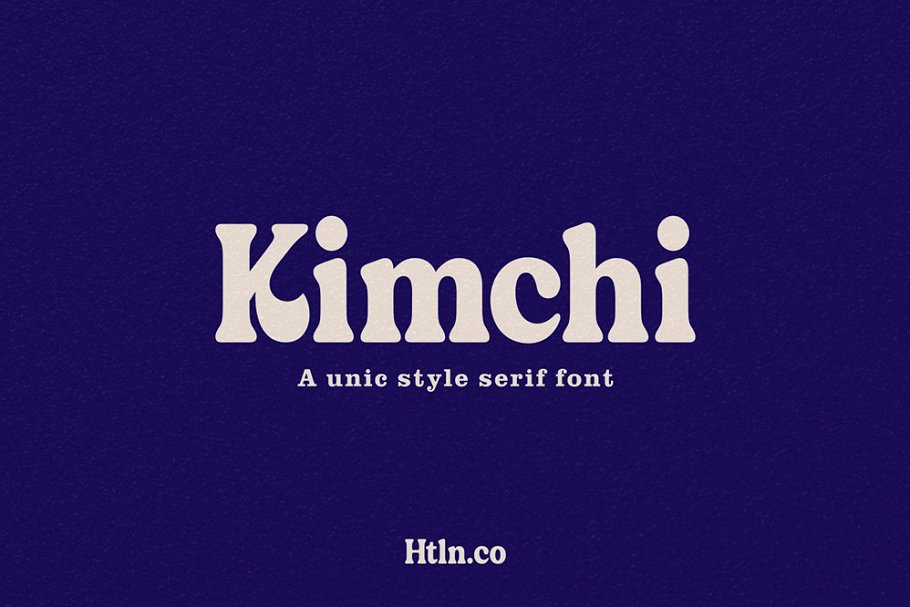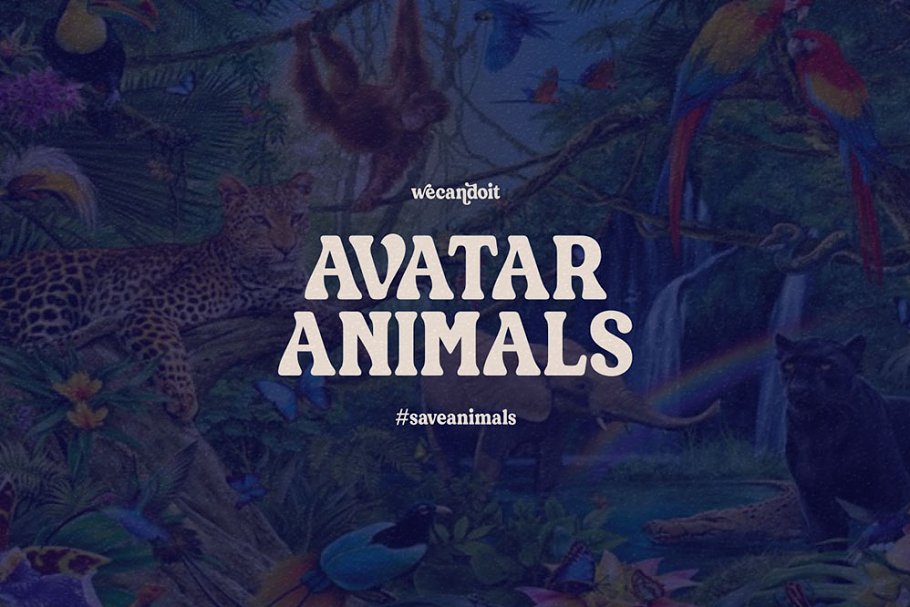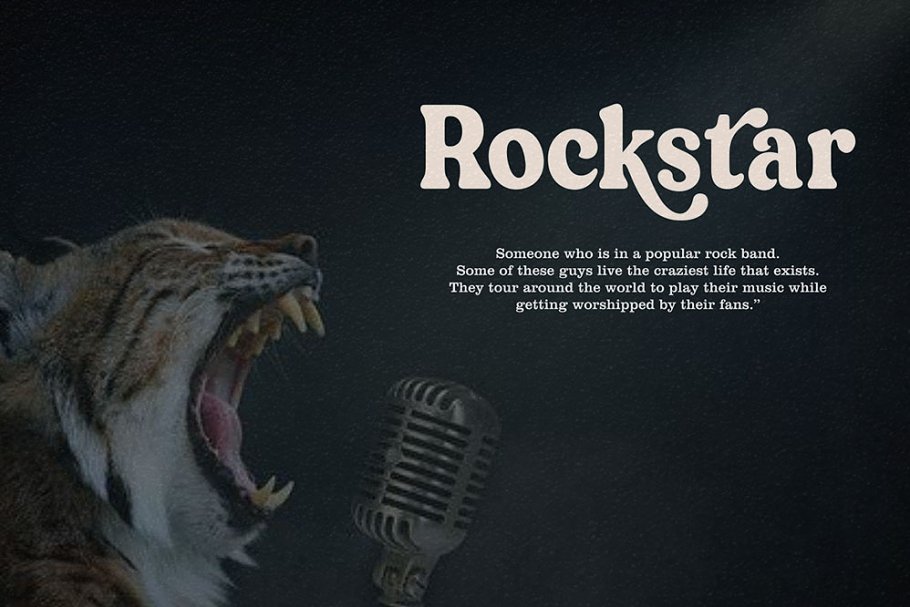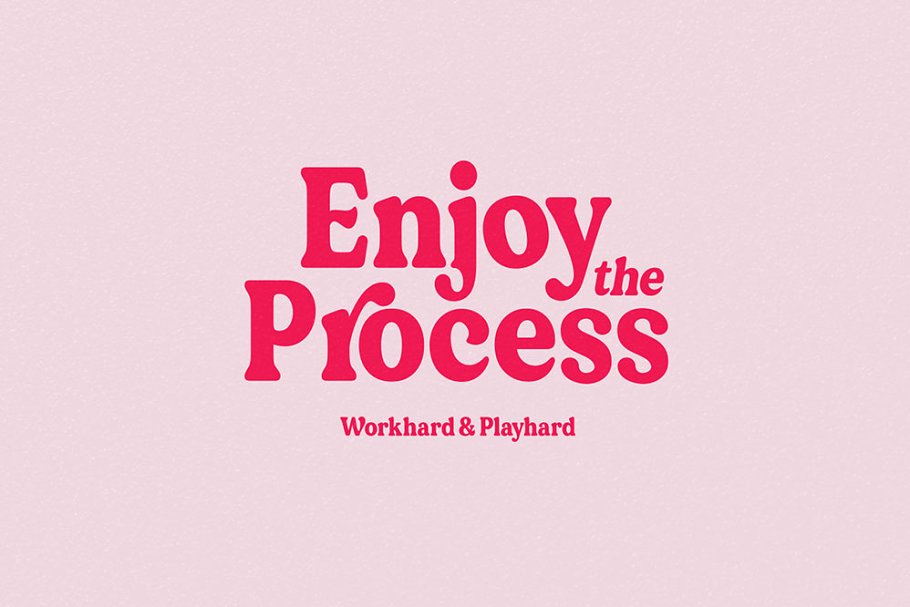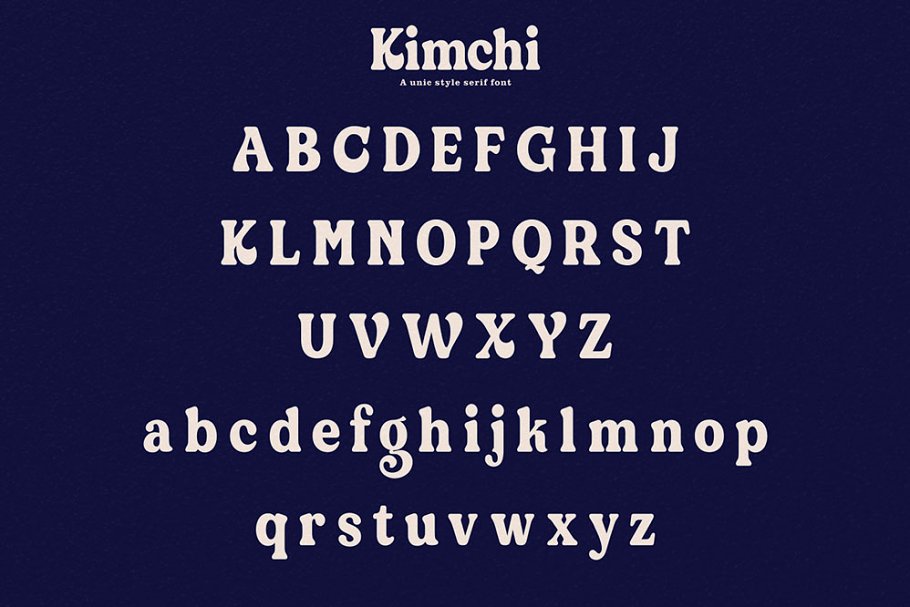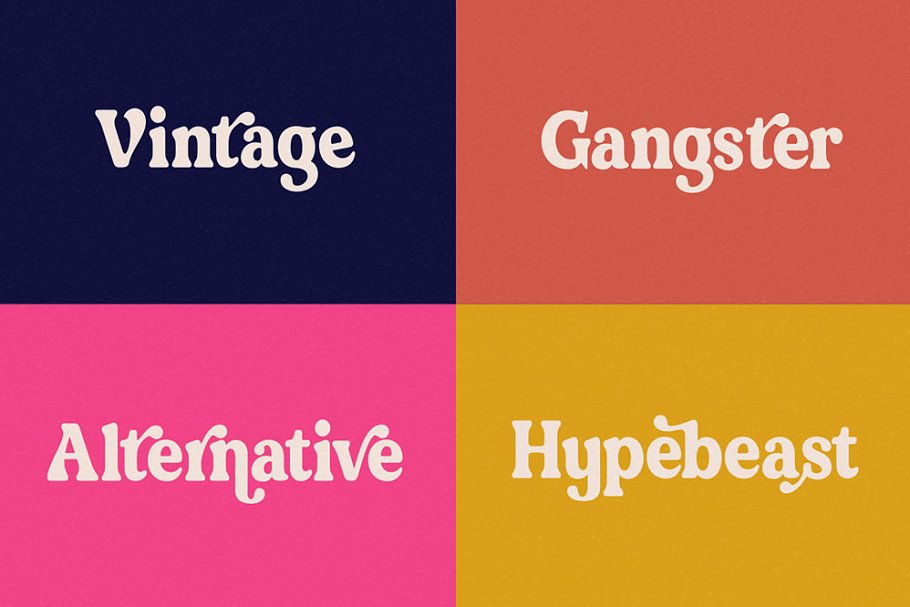
About the Kimchi style
The Kimchi Style is new font unic style , elegant and retro feel character set, To create the beautiful combination, just mix the uppercase and lowercase then mix with the alternative glyphs, The Kimchi Style font includes a full set of capital and lowercase letters, as well as multi-lingual support, currency figures, numerals, punctuation & some extra glyphs